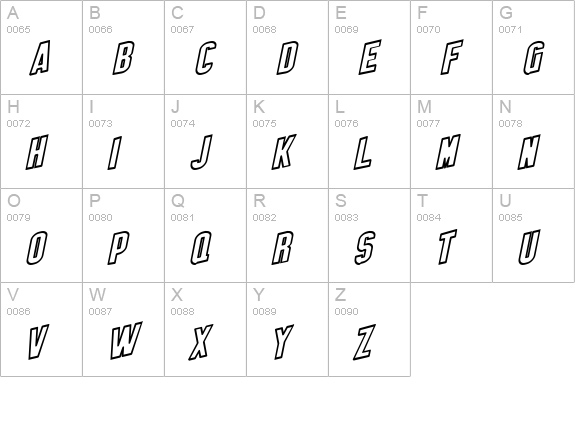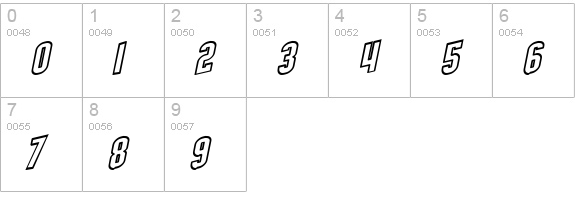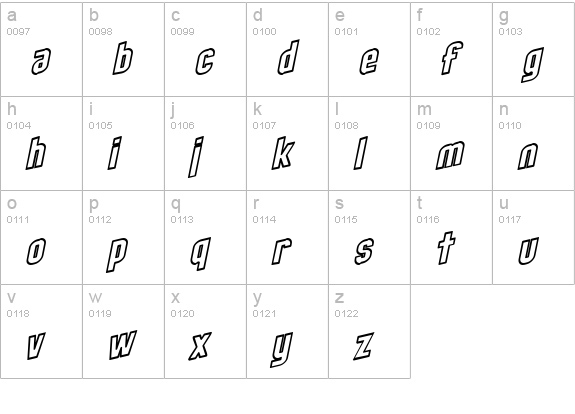
SF Obliquities Outline Font Details
SF Obliquities Outline is a stunning and versatile font that is sure to captivate and inspire. This unique typeface combines the elegance of traditional letterforms with a modern twist, resulting in a visually striking design that is perfect for a wide range of projects. With its clean lines and bold strokes, SF Obliquities Outline demands attention and makes a bold statement. The free SF Obliquities Outline font is a must-have for any designer or typographer looking to add a touch of sophistication and creativity to their work. Whether you are designing a logo, creating a poster, or crafting a stylish invitation, this font is sure to elevate your design to new heights. One of the best things about SF Obliquities Outline is that it is freely available to download at FontsMarket.com. This means that you can easily access this incredible font without having to worry about breaking the bank. Whether you are a professional designer or a hobbyist, you can take advantage of this amazing font and bring your creative visions to life. So why wait? Take your designs to the next level with SF Obliquities Outline. Download this remarkable font today from FontsMarket.com and let your imagination run wild. With its sleek and modern design, this font is sure to make a lasting impression on your audience and elevate your work to new heights of excellence. Don't miss out on this incredible opportunity – get SF Obliquities Outline now and unleash your creativity like never before.